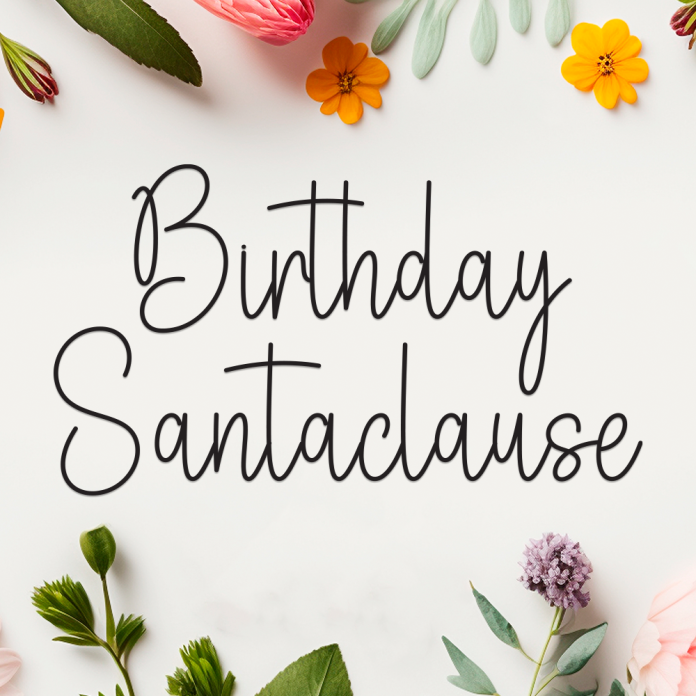
Birthday Santaclause is a joyful and whimsical handwriting font that blends birthday fun with Christmas magic. With playful strokes and a warm handwritten feel, this font adds a festive spirit to any project.
Handwriting style with a fun and festive flair
Rounded, cheerful letters inspired by birthday cards and holiday greetings